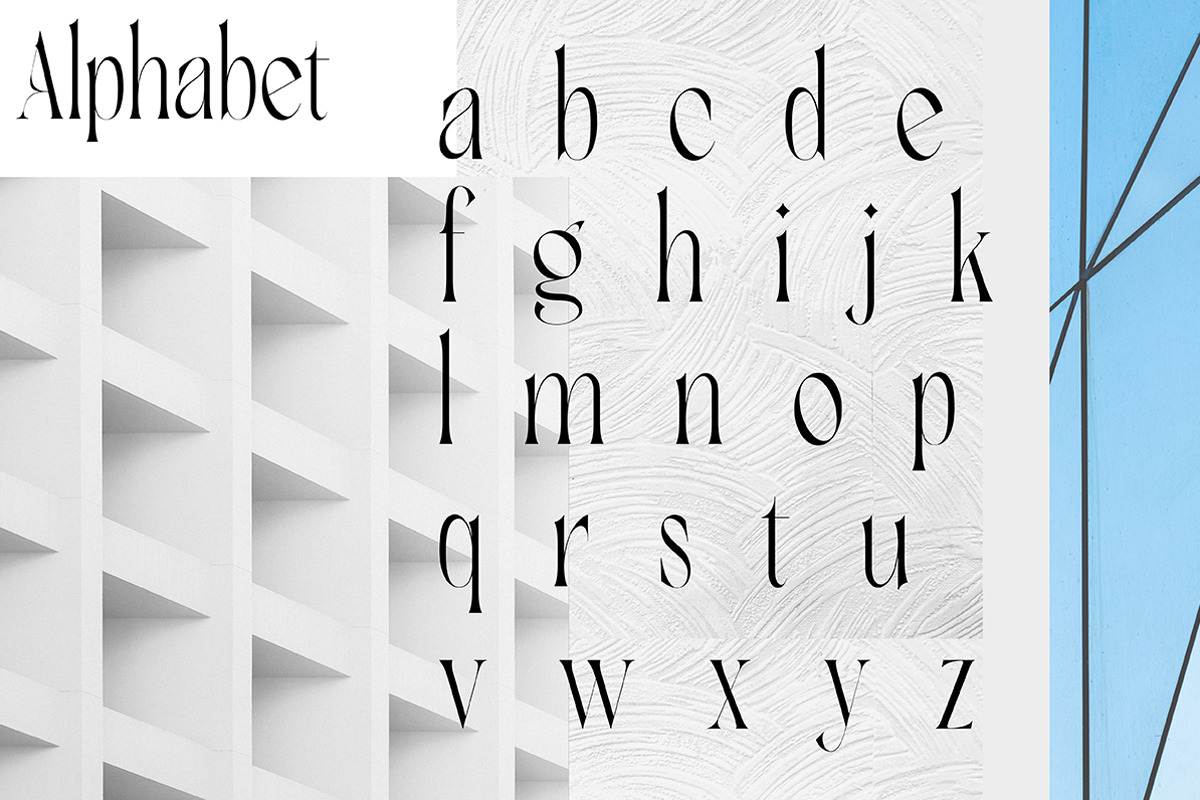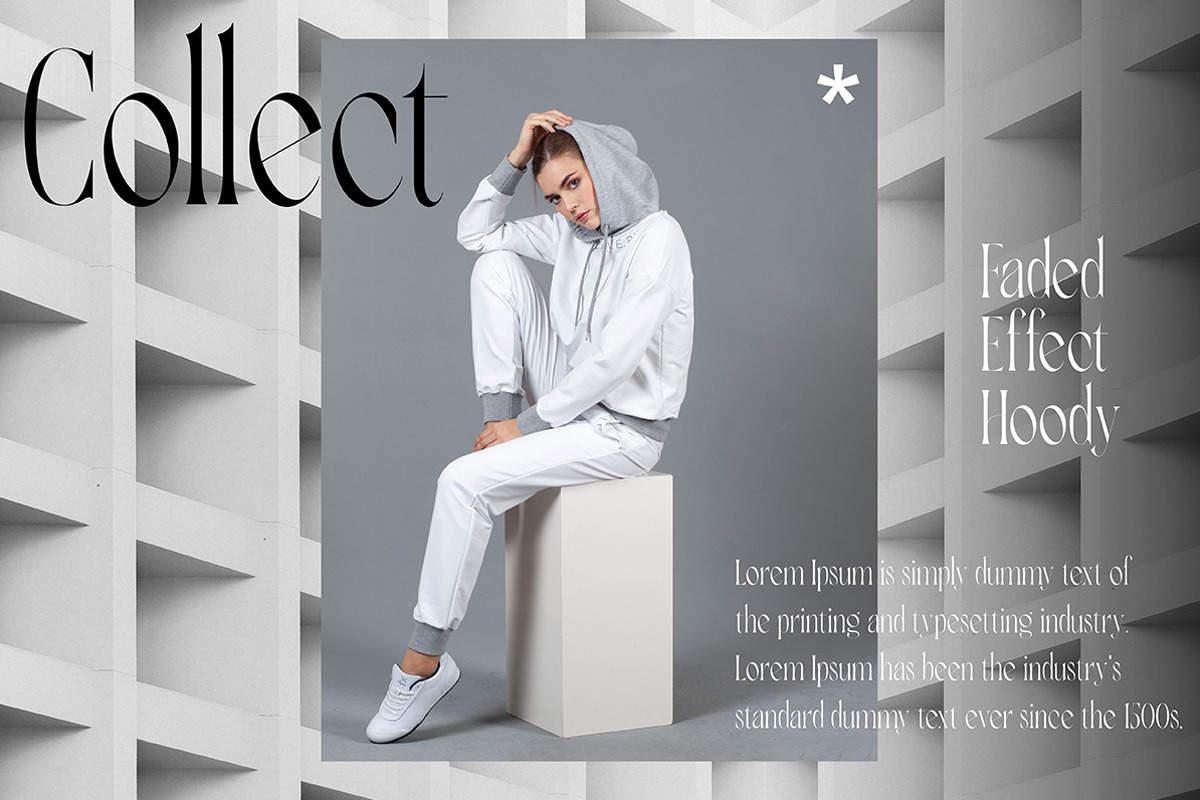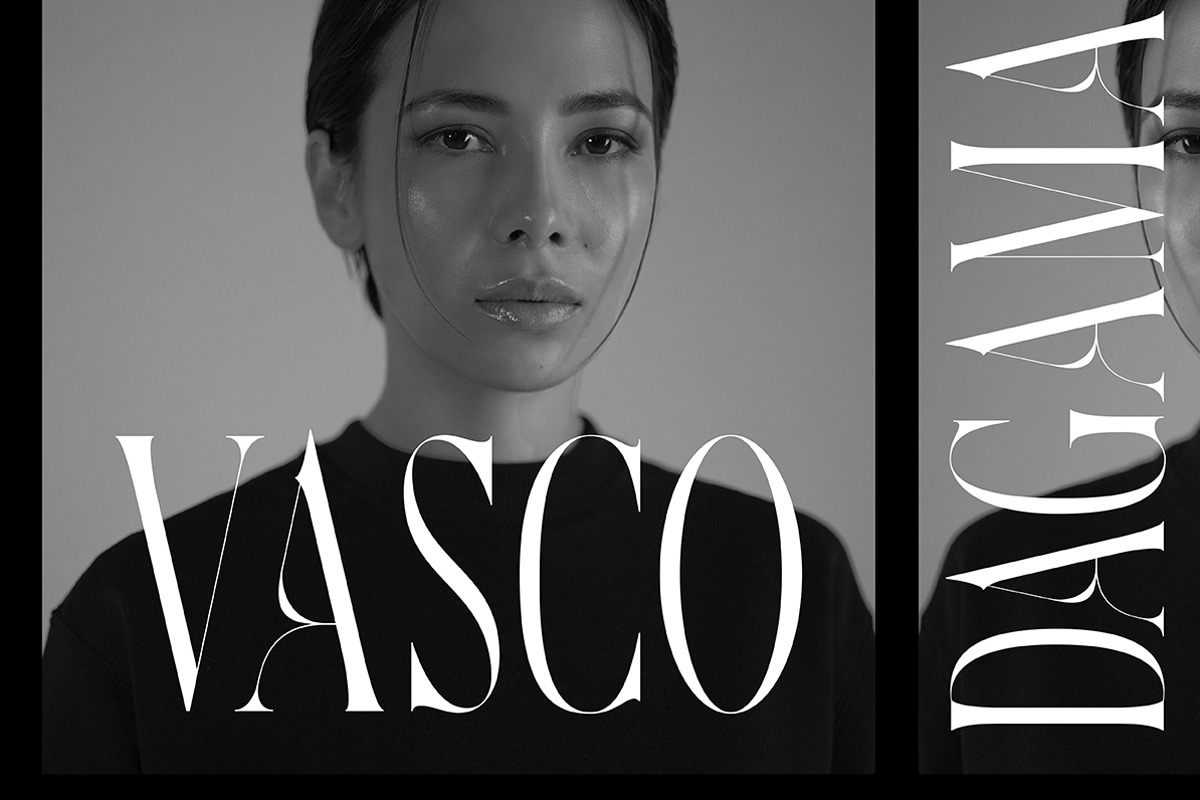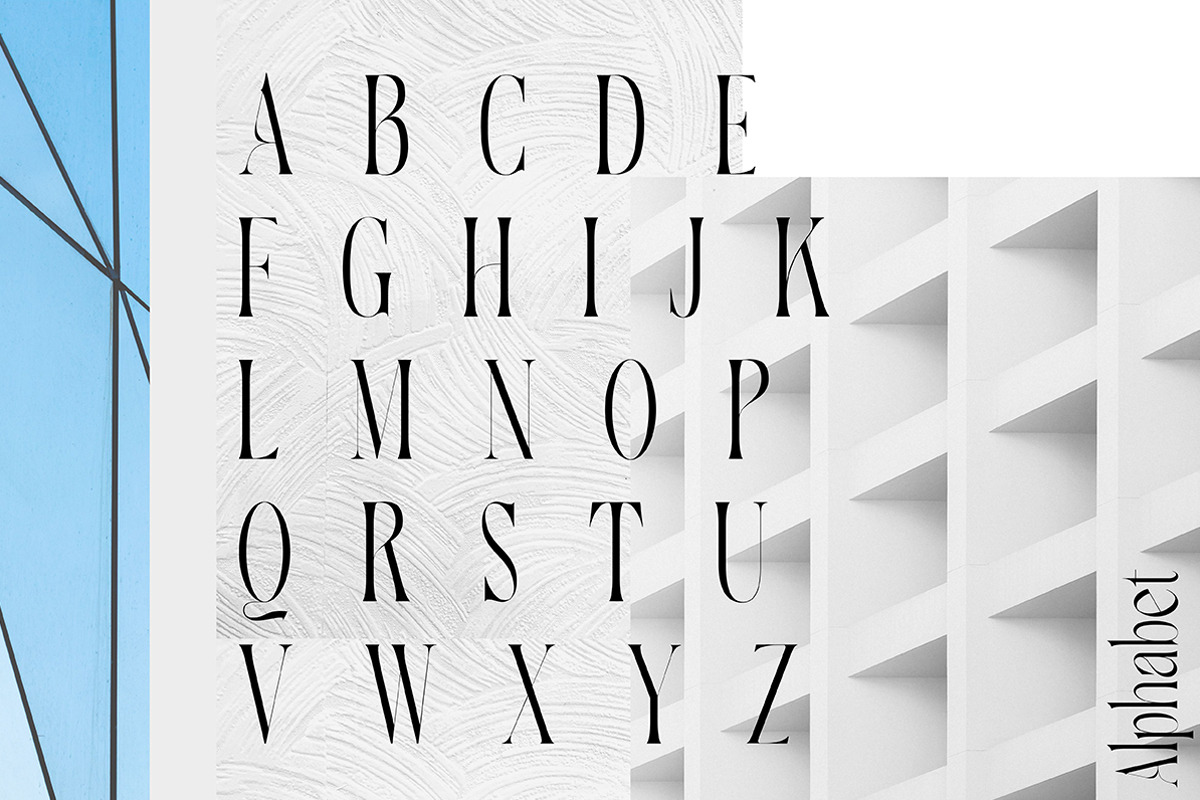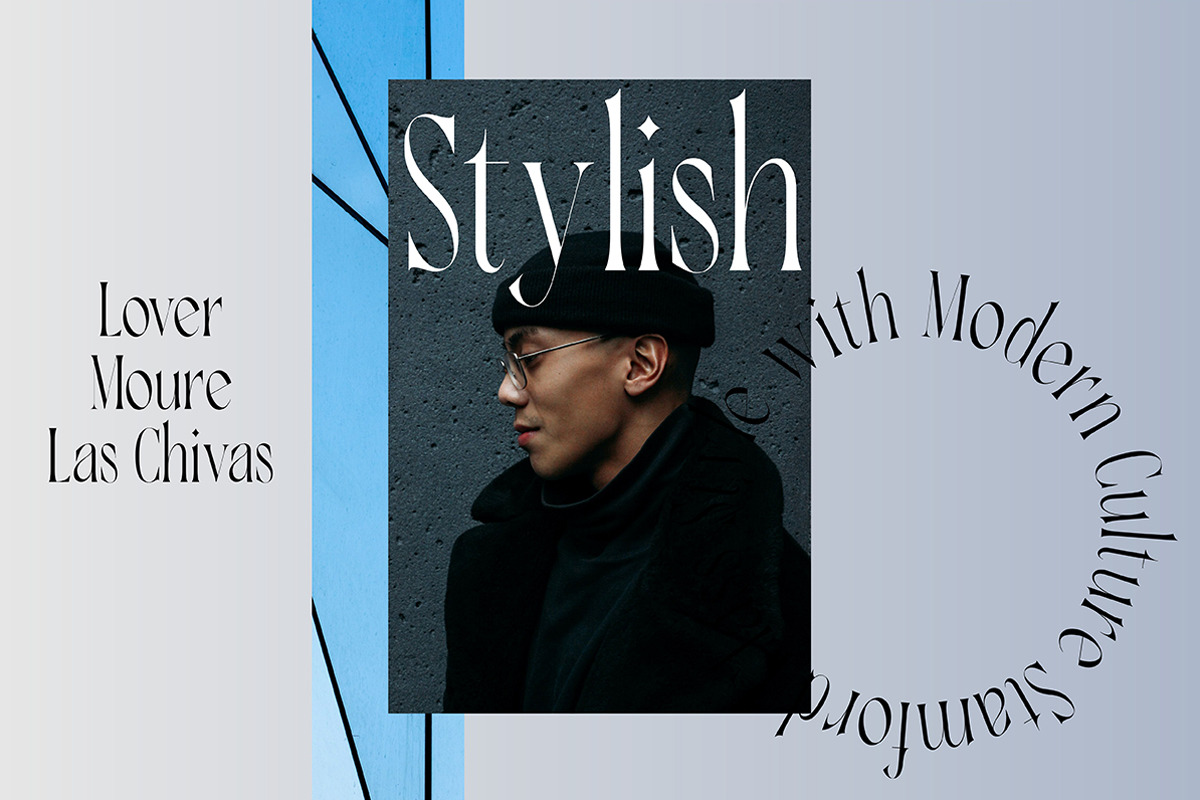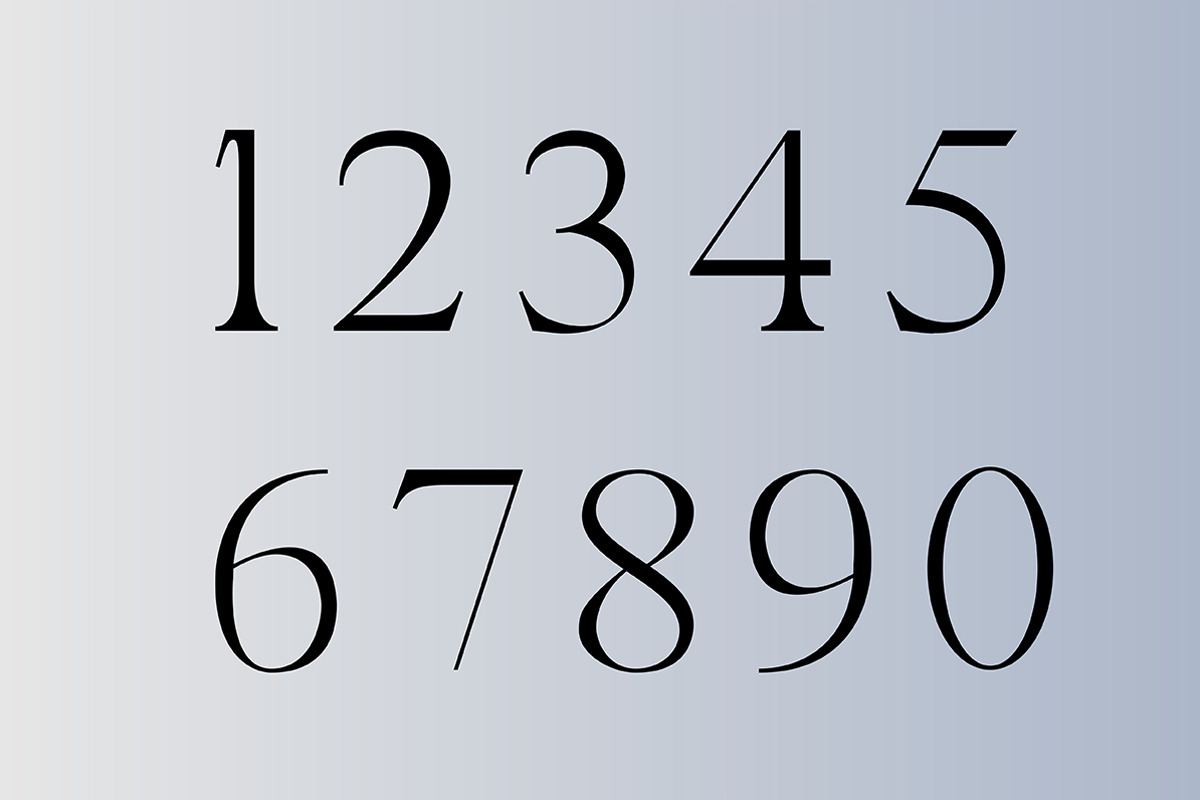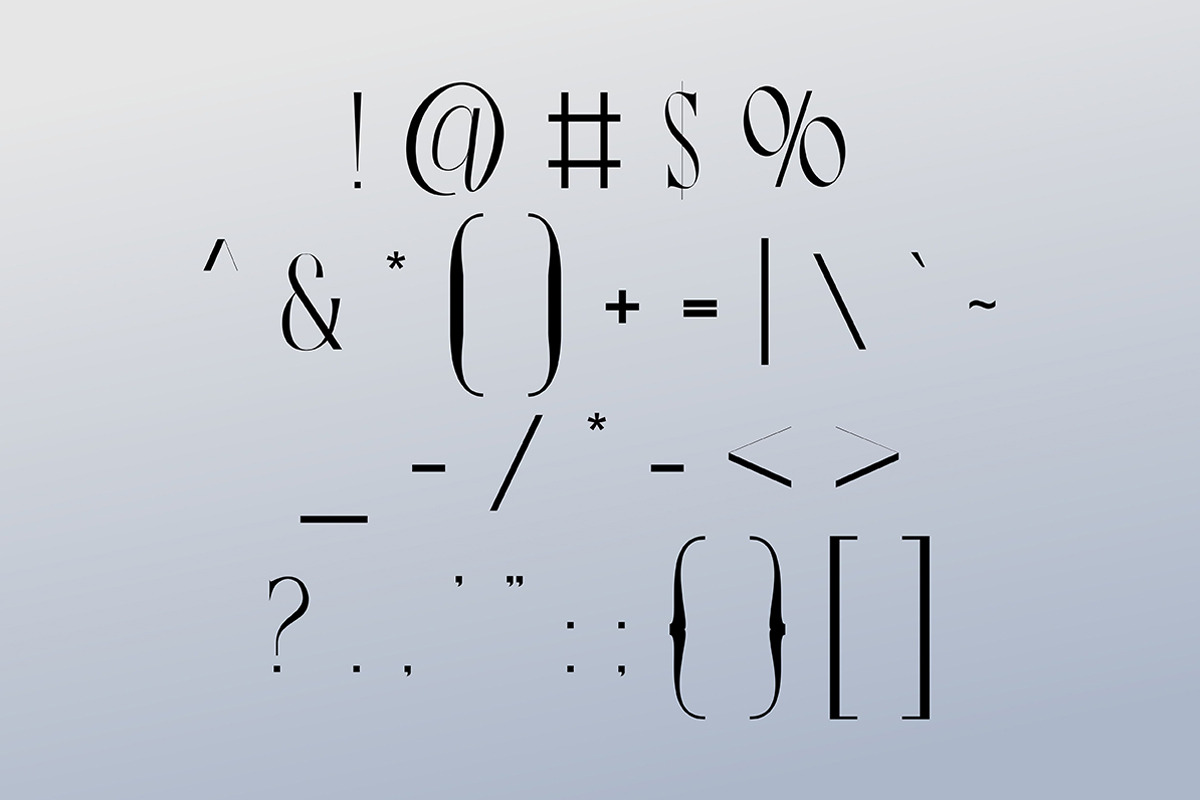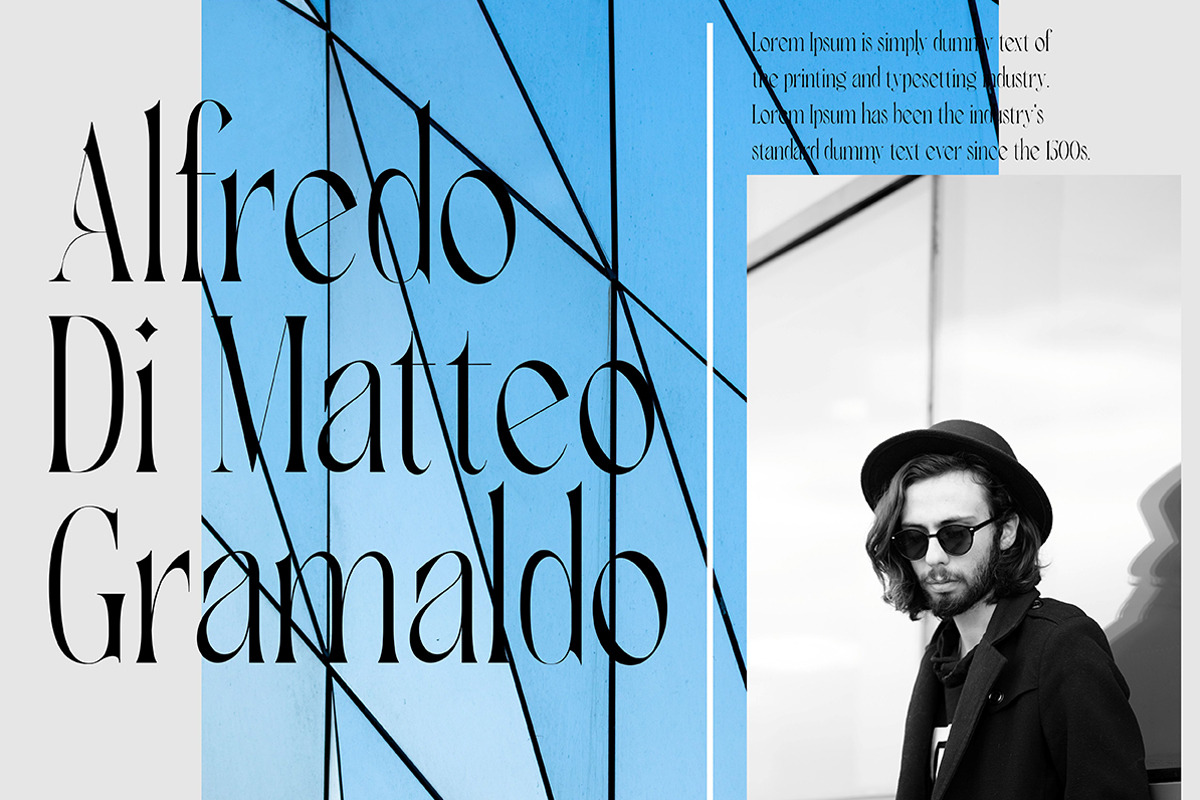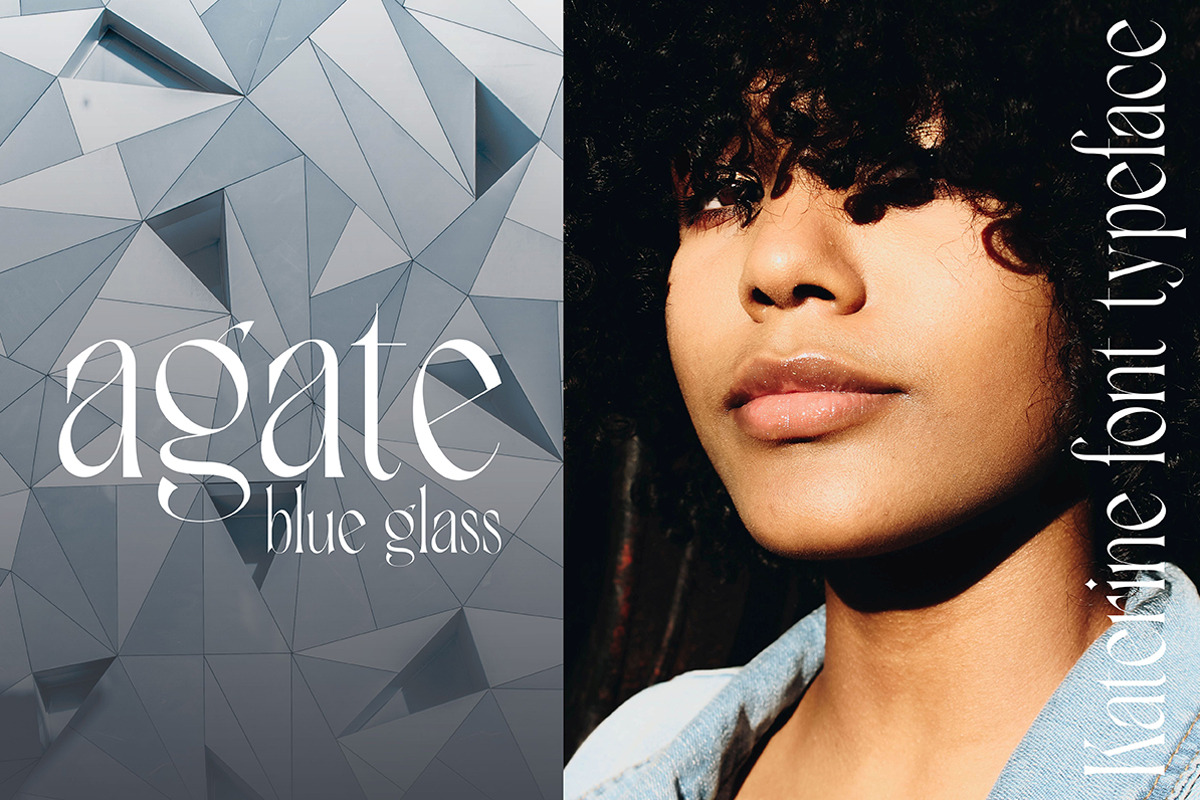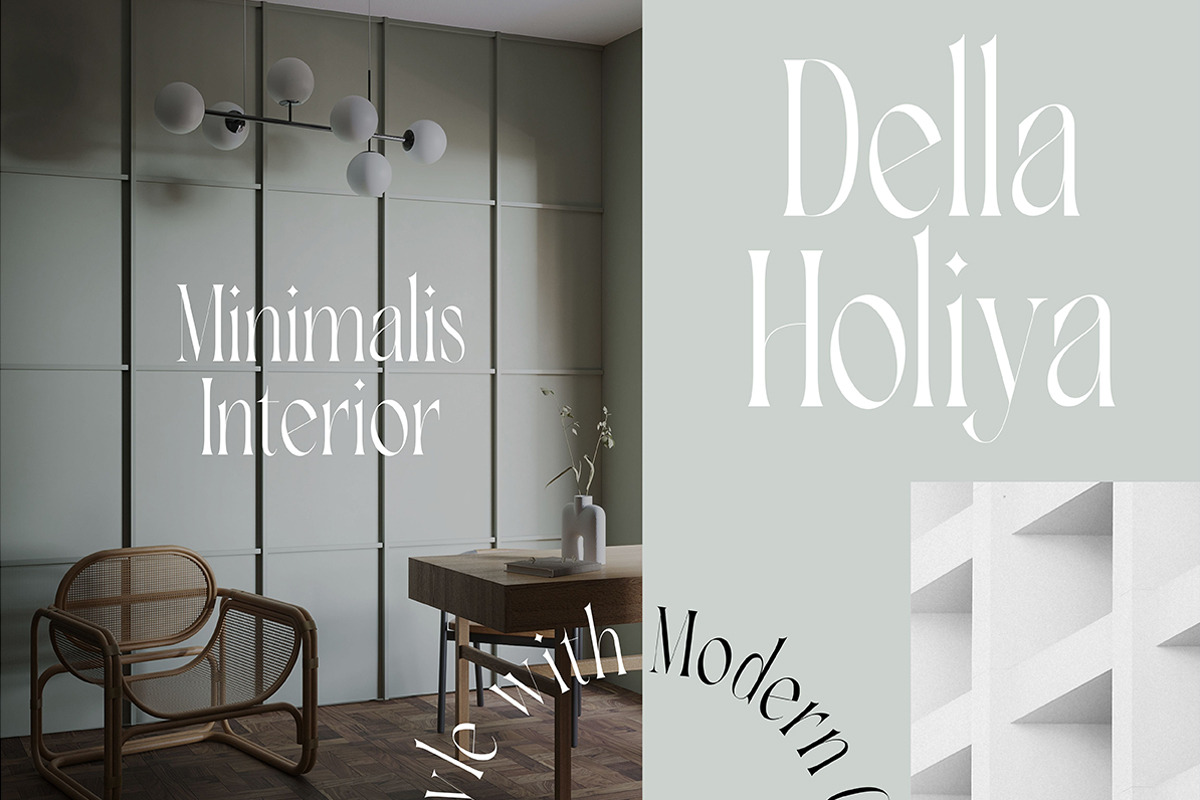
Katrine | Modern Serif
Katrine fonts includes uppercase letters, lowercase, numerals, a large range of punctuation. Serif font with modern stylish style. Created for poster, web design, branding, illustrations, badges and some other works.